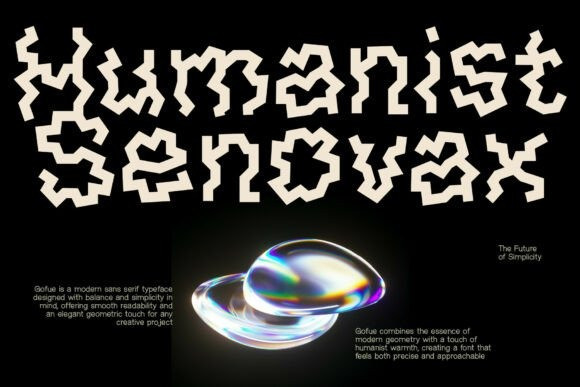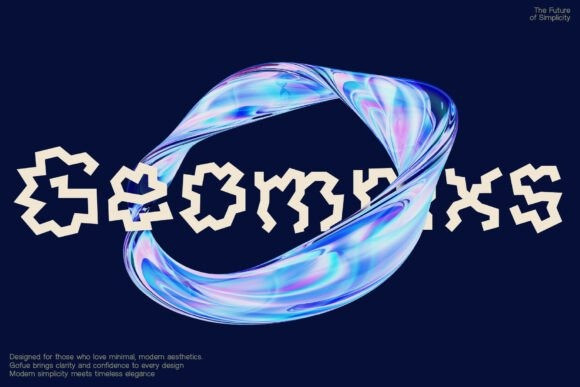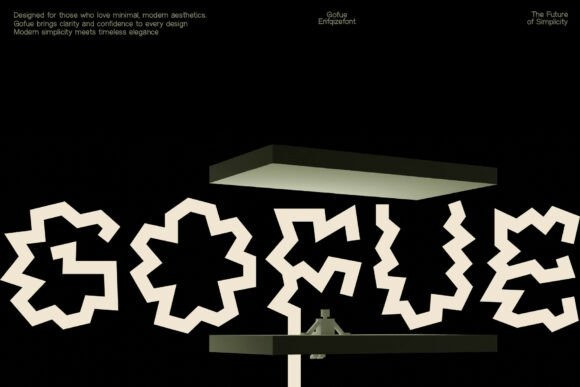
Gofue Font
Gofue Font is a bold experimental display font that transforms geometric forms into expressive, abstract letter structures. With its sharp angles, zigzag contours, and symbolic shapes, Gofue pushes typography beyond conventional readability into a realm of visual statement and artistic exploration.
Designed for designers who love minimal concepts with a strong visual twist, Gofue works exceptionally well for posters, art direction, fashion branding, album covers, exhibitions, streetwear graphics, and conceptual design projects. Each character feels like a graphic element—making the font as much about composition as it is about typography.
Gofue embodies modern simplicity fused with abstract creativity. It is perfect for projects that aim to stand out, provoke curiosity, and embrace a distinctive avant-garde aesthetic.